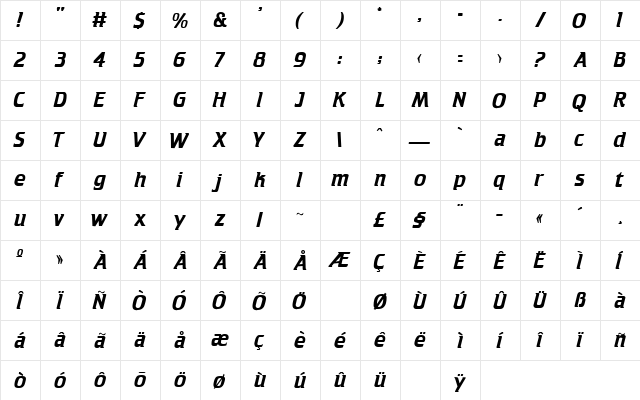
Titles Plain Font Preview
Titles Plain
Titles Plain Font Details
Design Context for Titles Typeface
Titles is a composed and adaptable typeface that performs quietly and consistently across a wide range of design contexts.